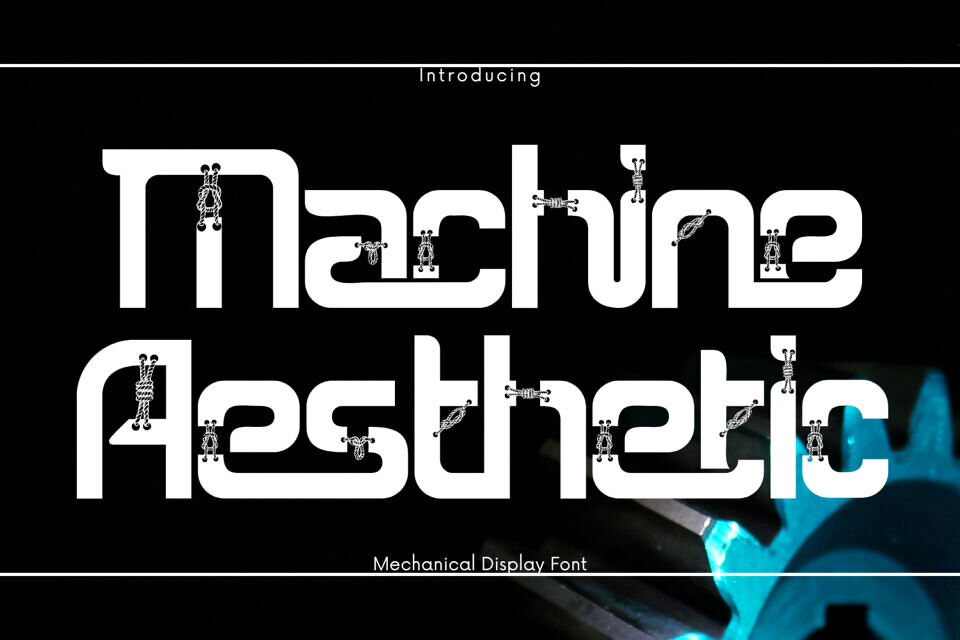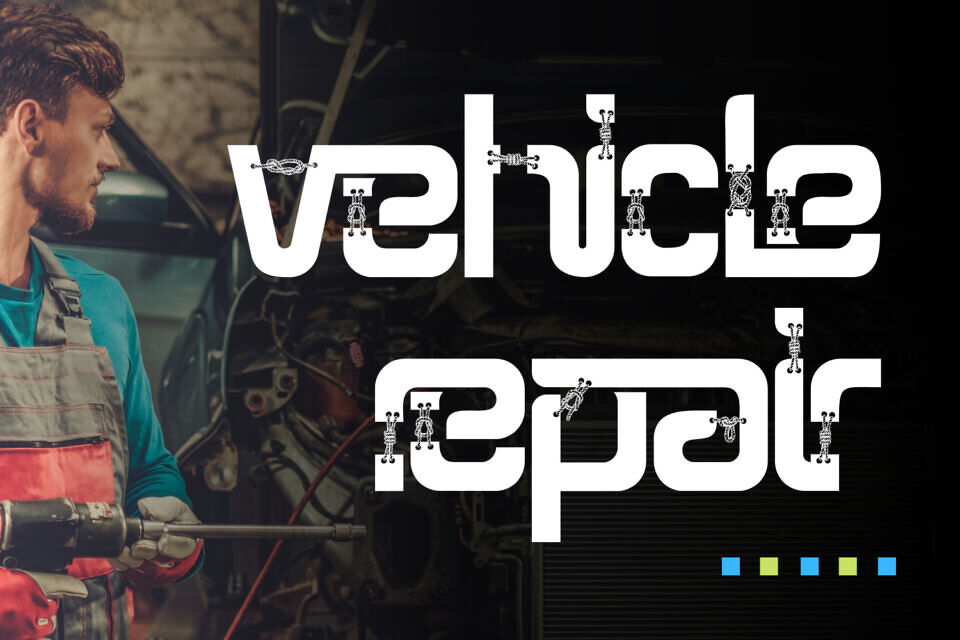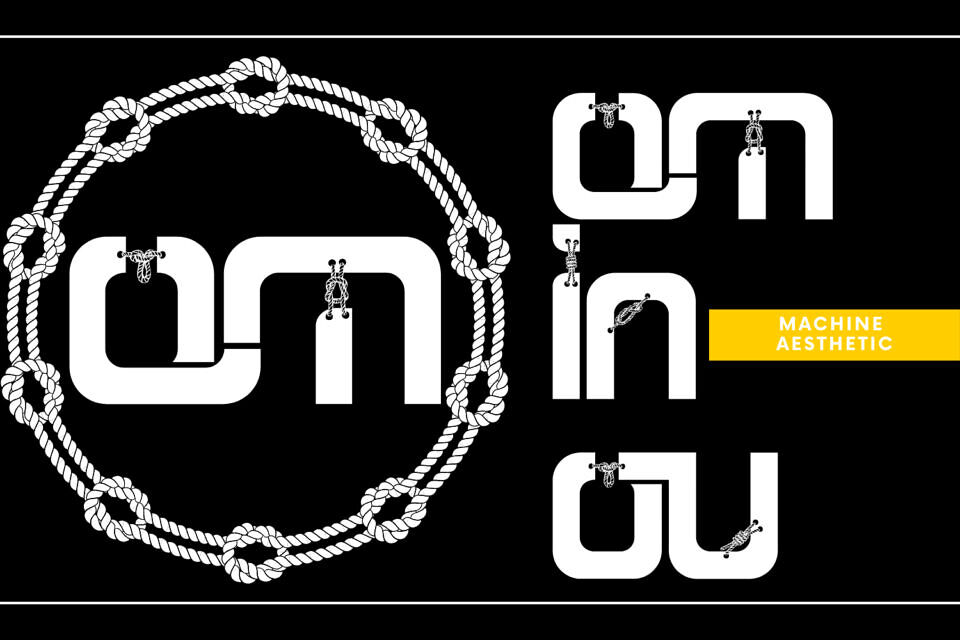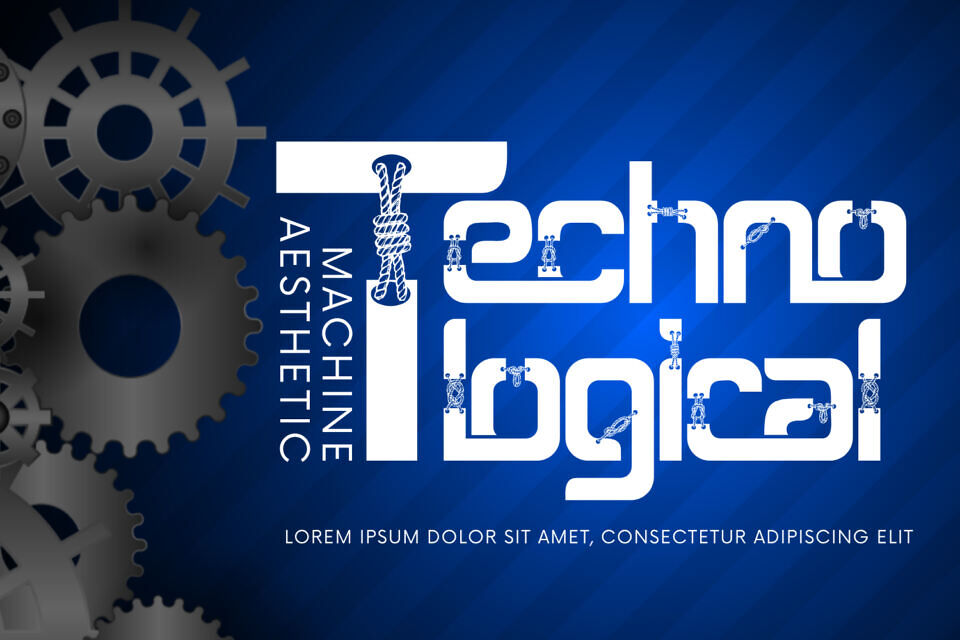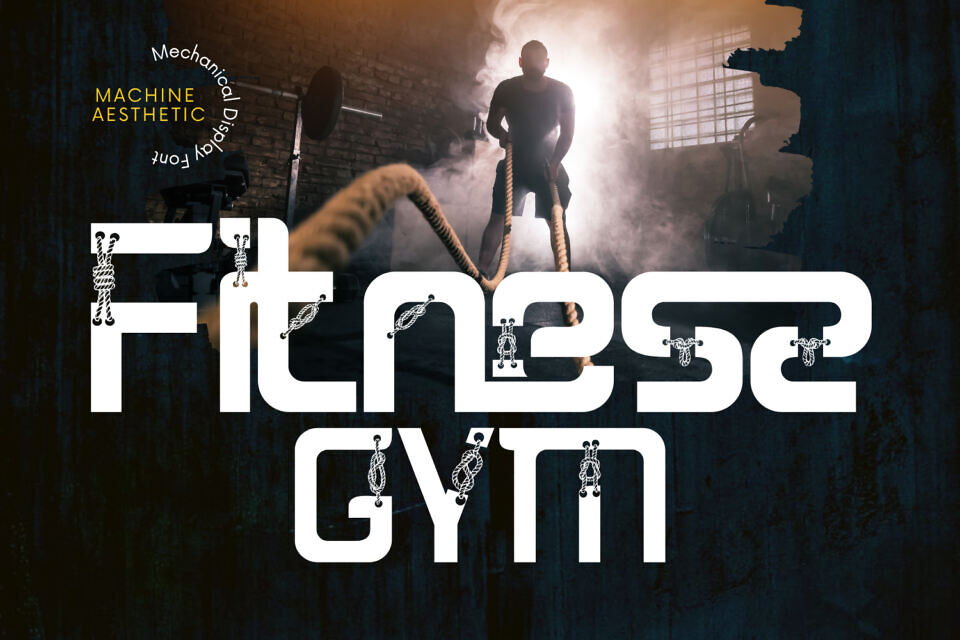
Machine Aesthetic Font is a bold modular display font that fuses industrial minimalism with mechanical fantasy. Engineered with blocky rounded terminals and detailed with machine-inspired ornaments—such as ropes, bolts, and gears—this typeface redefines the intersection between typography and industrial design.
Built with precision and personality, Machine Aesthetic Font brings a sense of structural aesthetics to any layout. Its minimal geometric foundation ensures legibility, while its decorative glyphs add a unique, technical flair that is both futuristic and handcrafted.